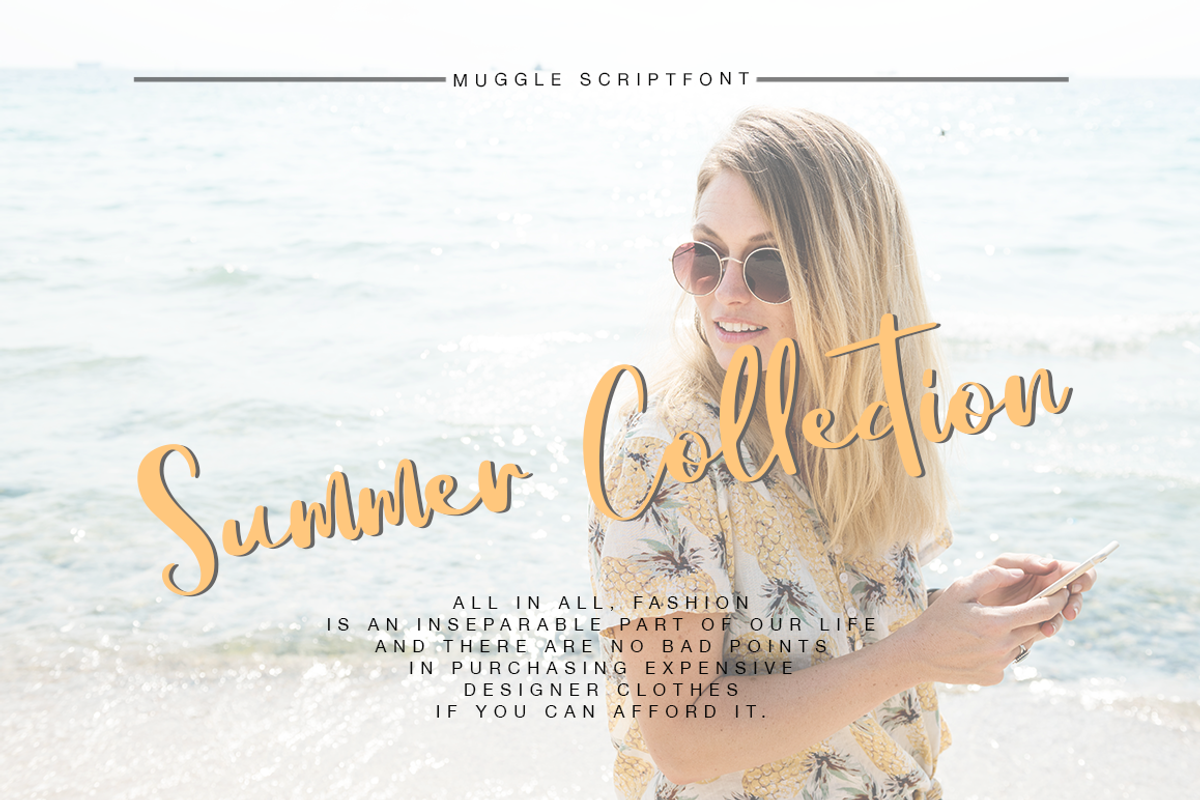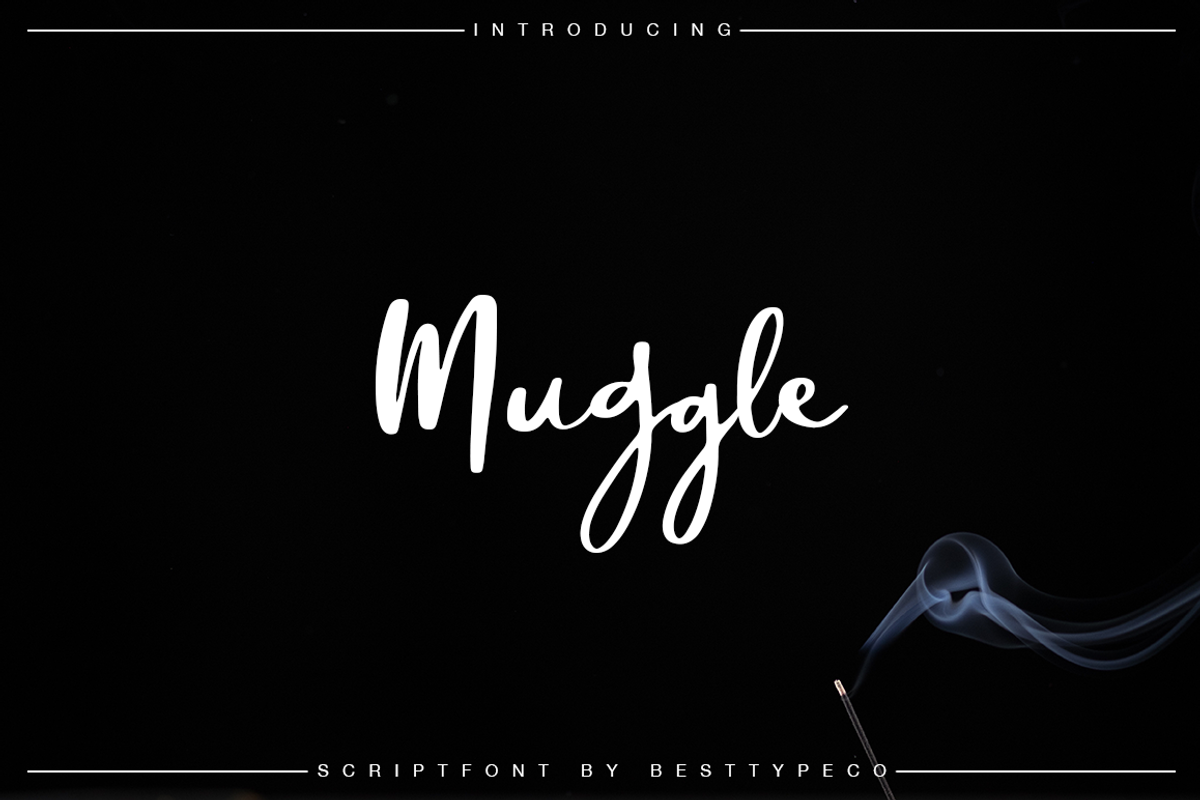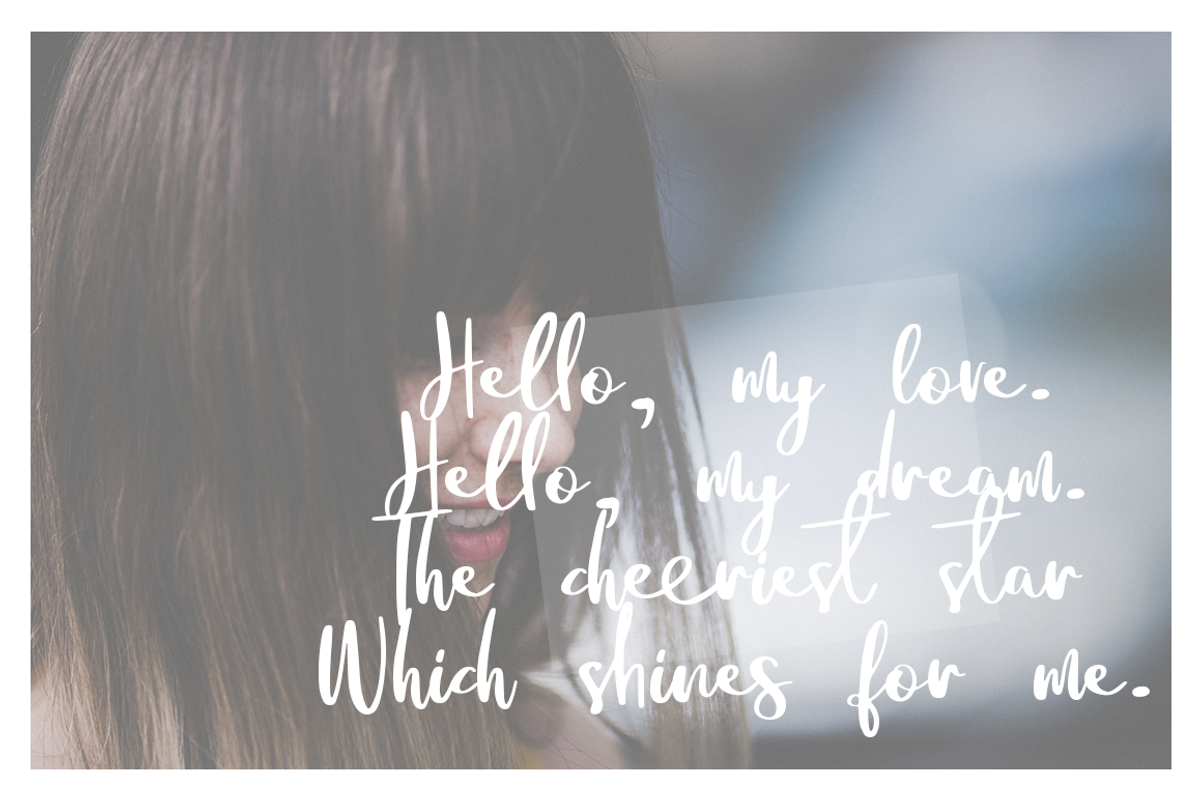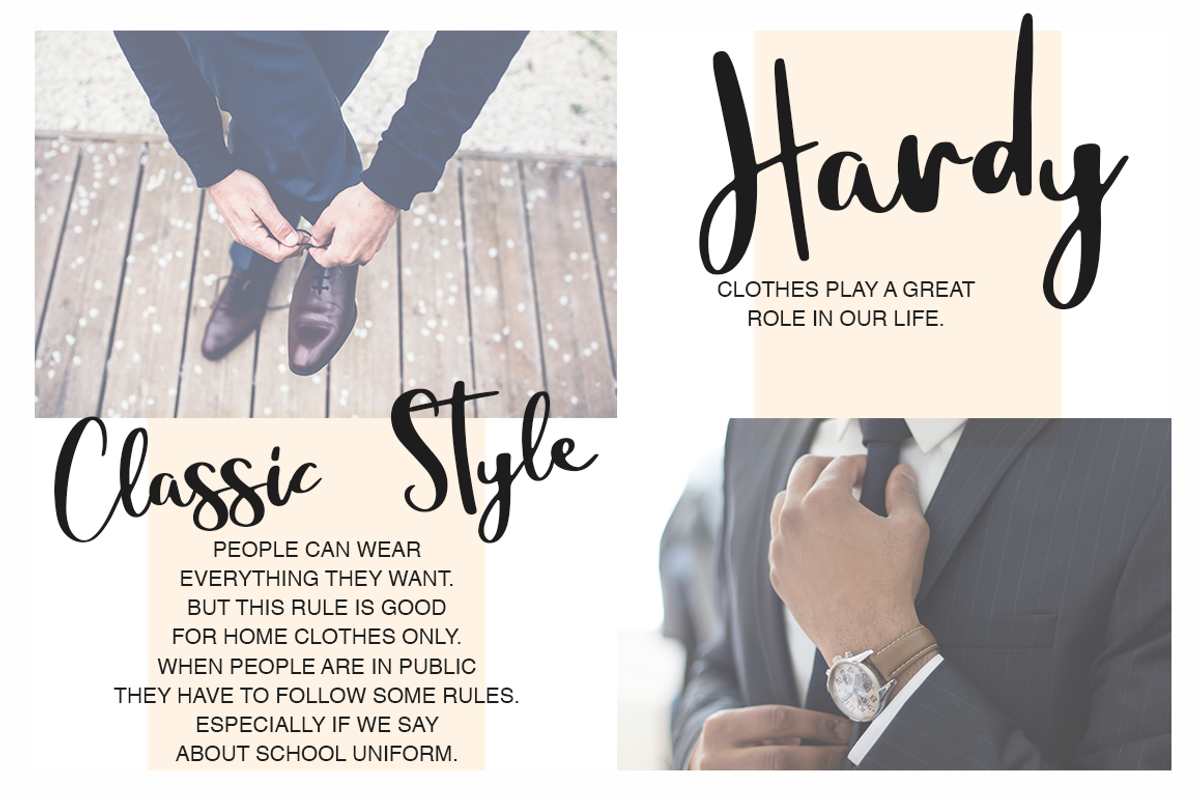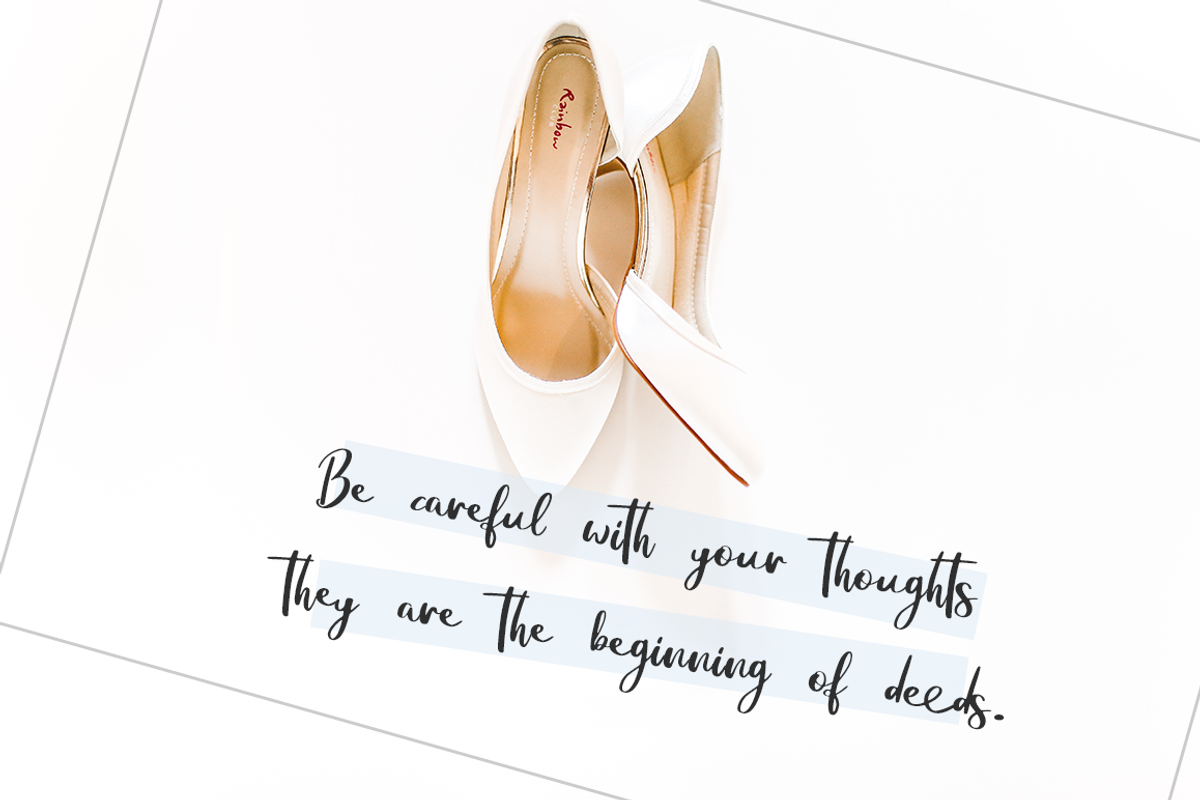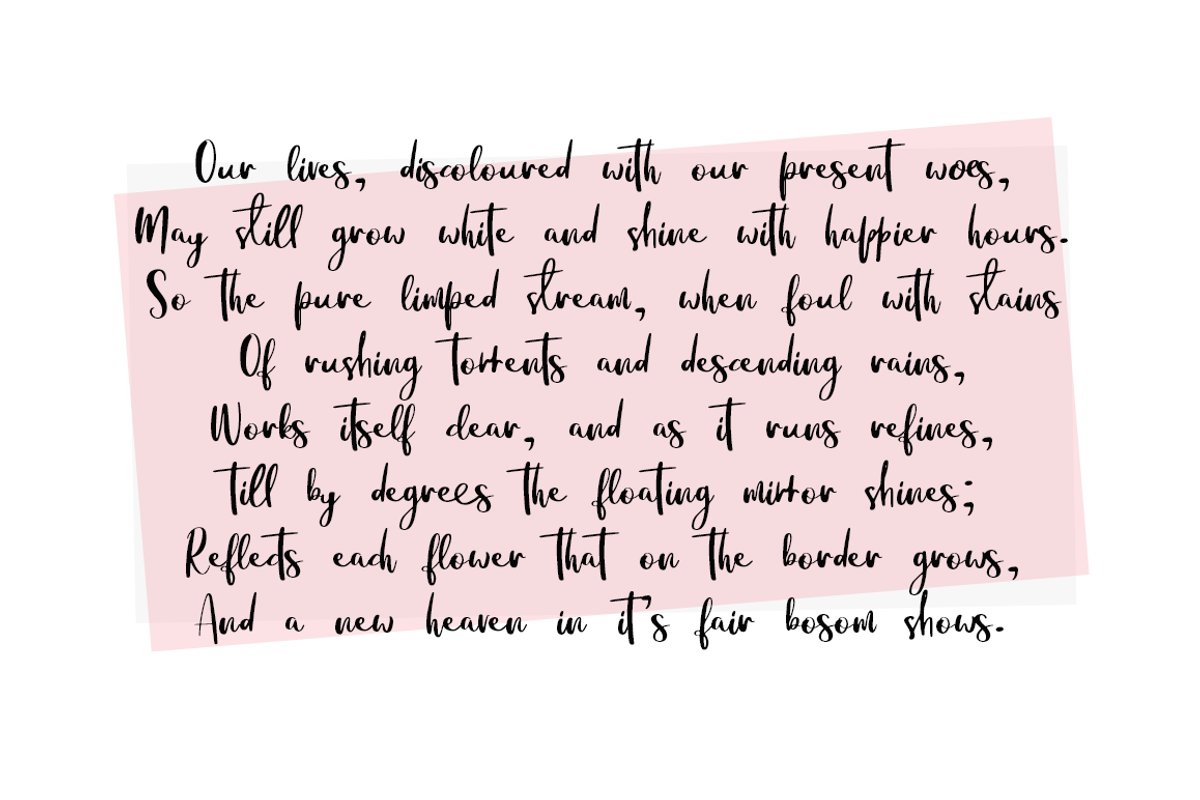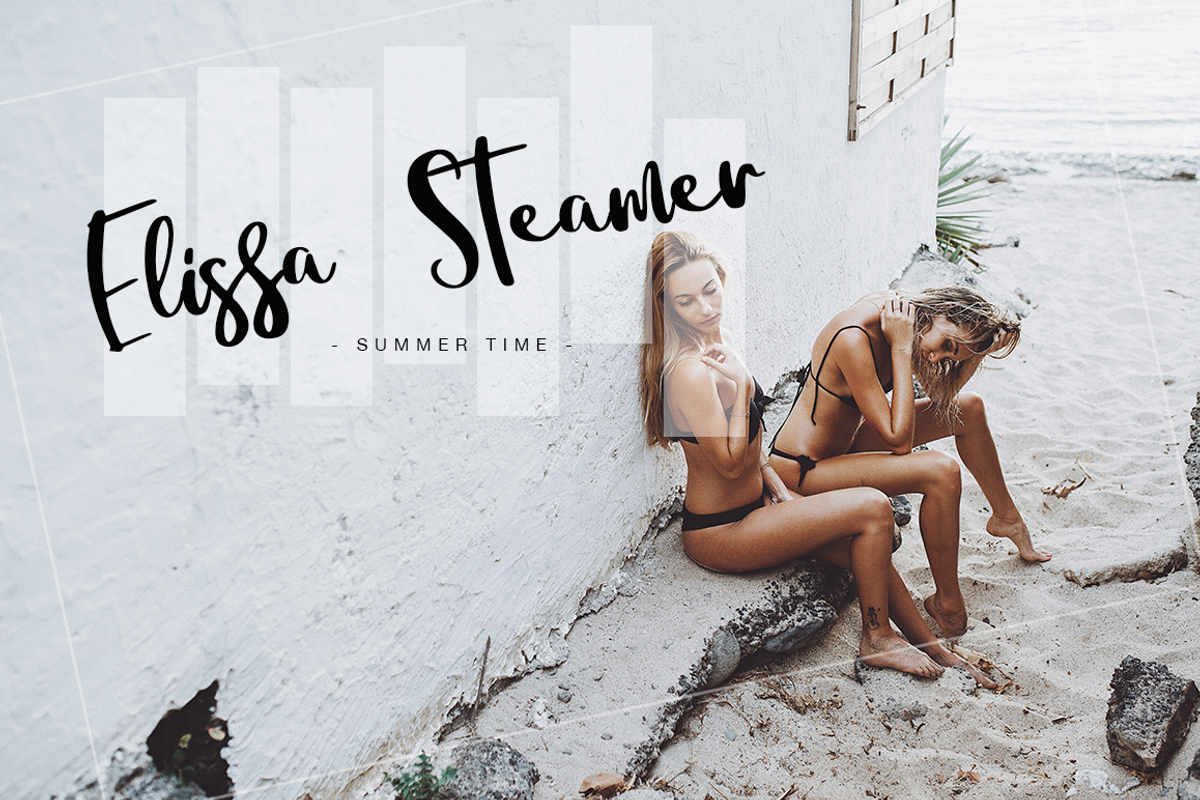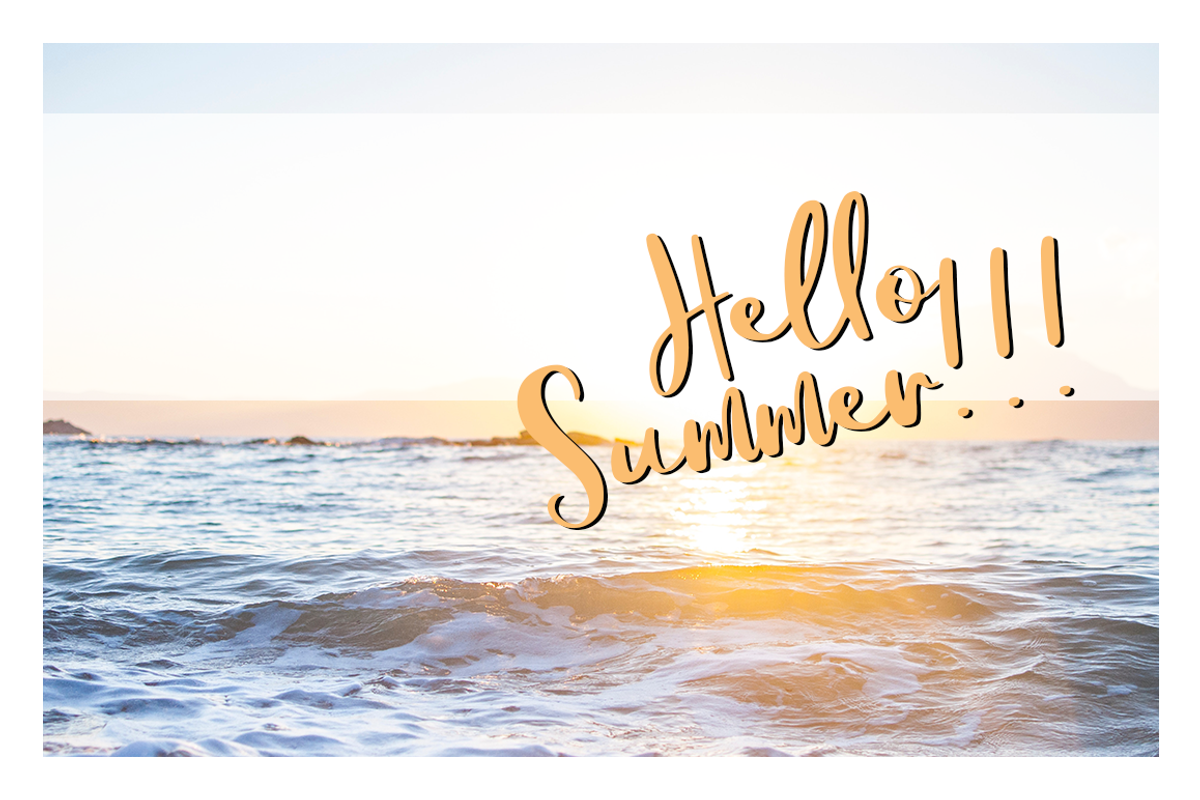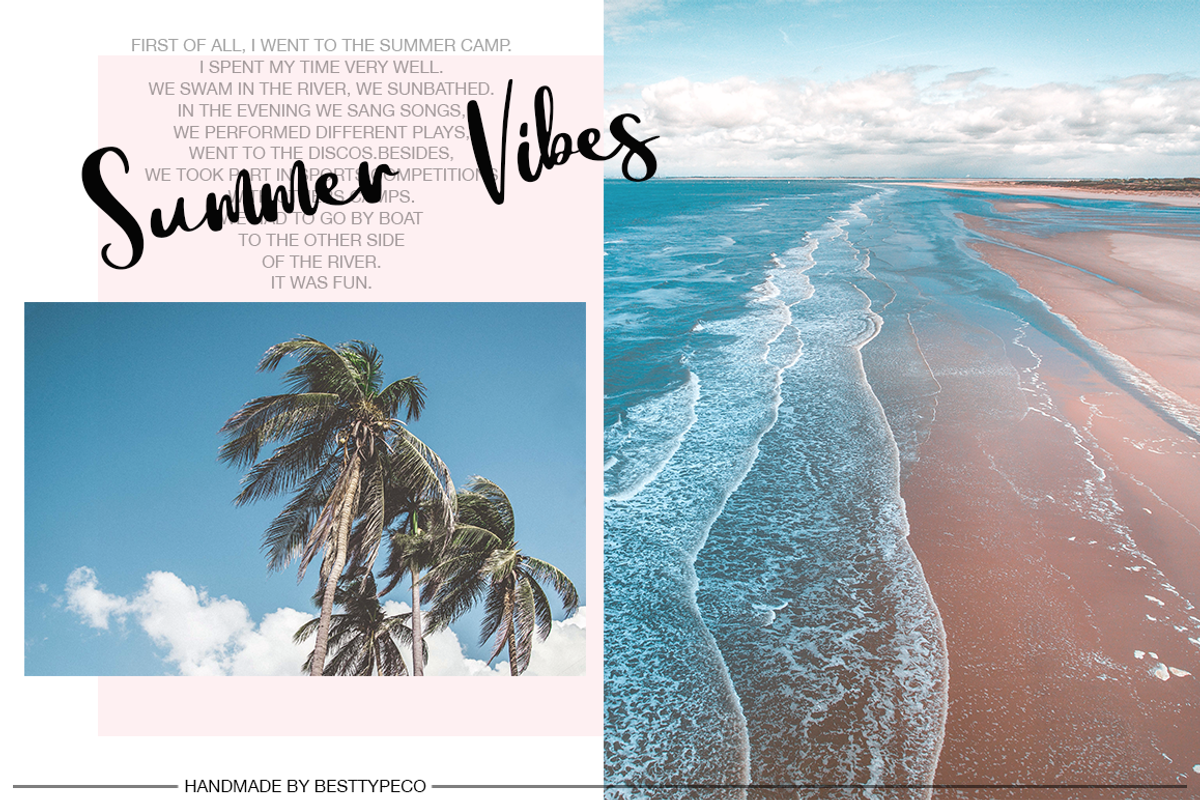
Muggle
Muggle - a new fresh handmade calligraphy font.
Very suitable for greeting cards, branding materials, business cards, quotes, posters, and more!This font are perfect for wedding postcard. Or you can create perfect and unique design of your logo, blog, stationery, marketing, magazines and more :)